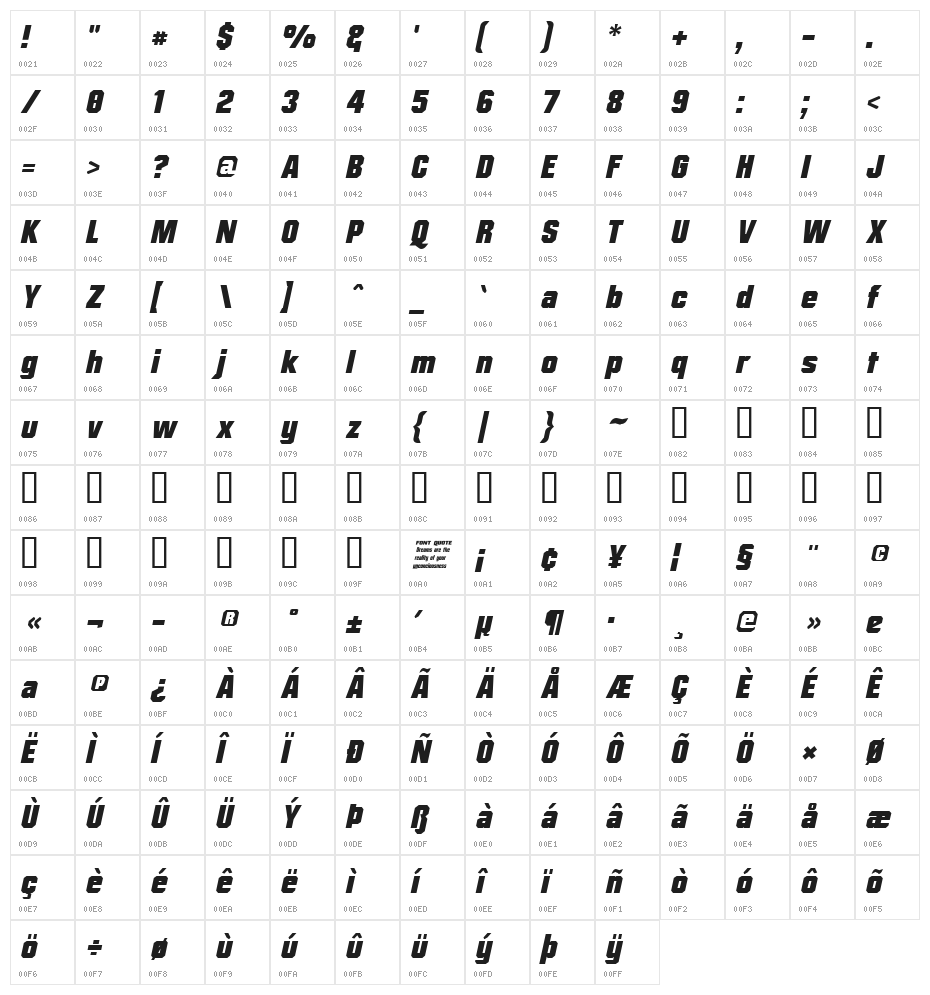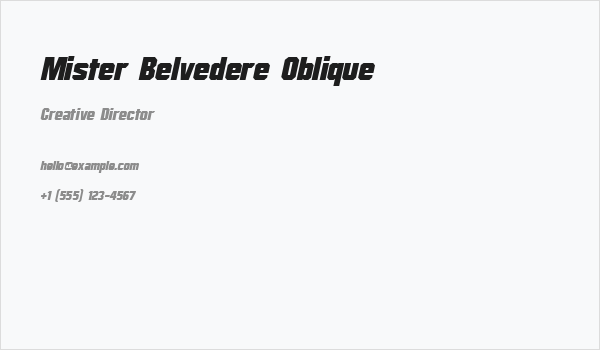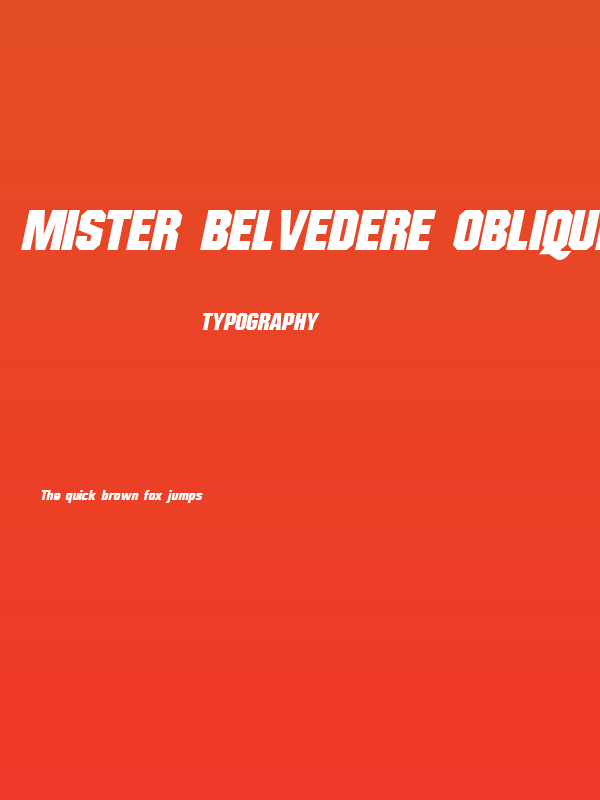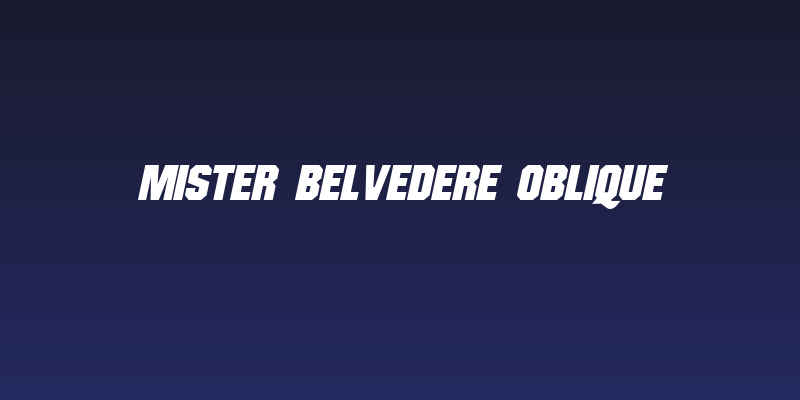
Mister Belvedere Oblique Font
Mister Belvedere Oblique Description
This font features a bold, dynamic style with a strong oblique slant, giving it a sense of motion and energy. The characters are robust and angular, with sharp edges and a geometric structure that conveys a modern and assertive appearance. The uppercase and lowercase letters maintain a consistent weight, ensuring readability while adding a distinctive flair. The numerals and special characters are designed to match the boldness of the alphabet, making them suitable for impactful displays. This font's unique style is ideal for projects that require a strong visual presence.
| Proposed Projects | Ideal for sports branding, action movie posters, dynamic logos, and attention-grabbing headlines. |